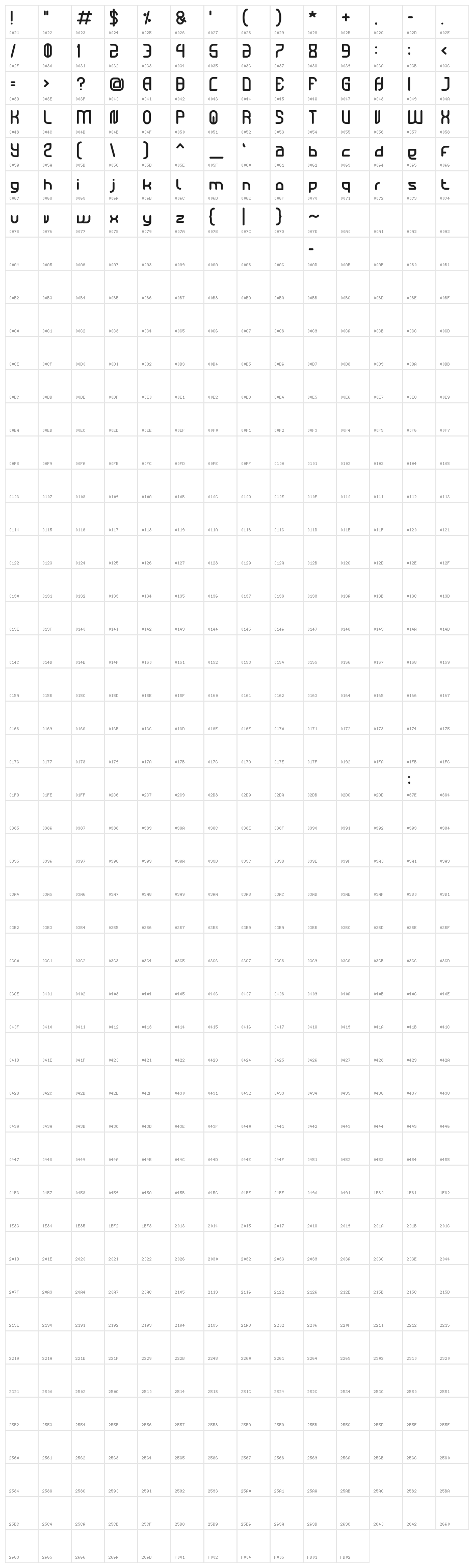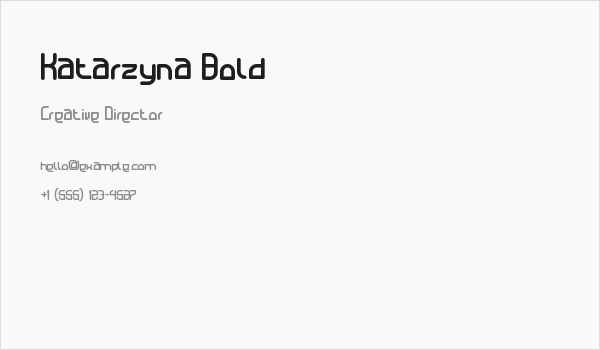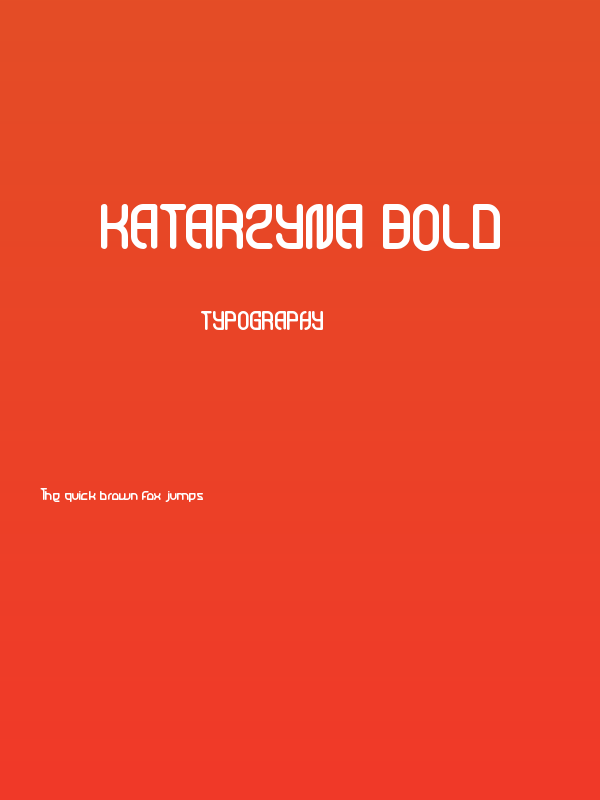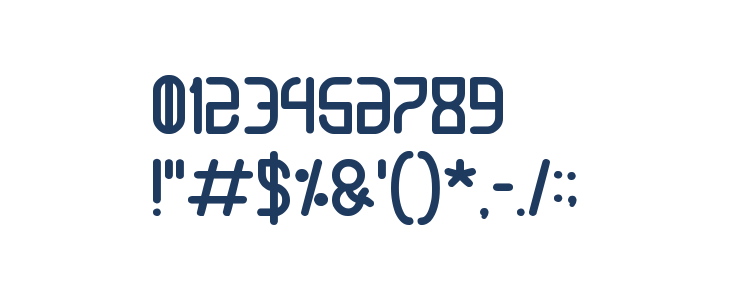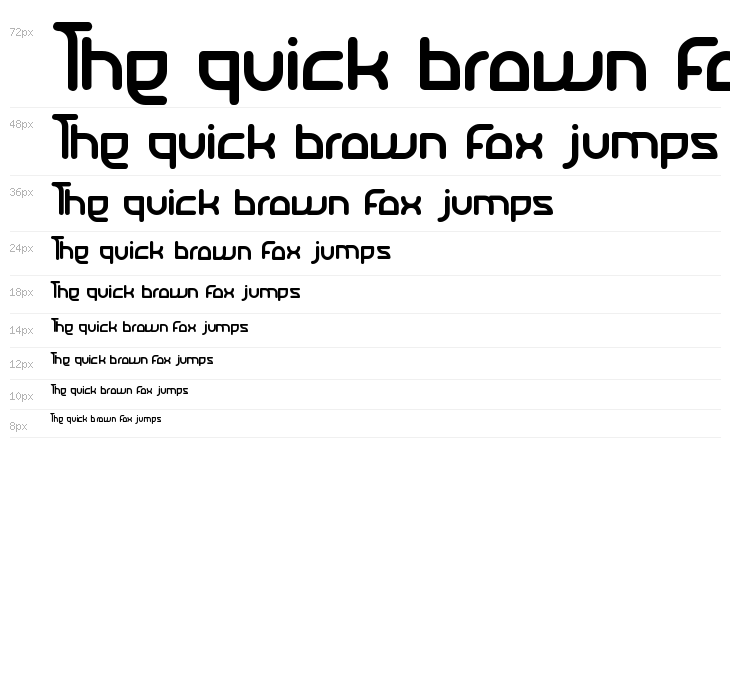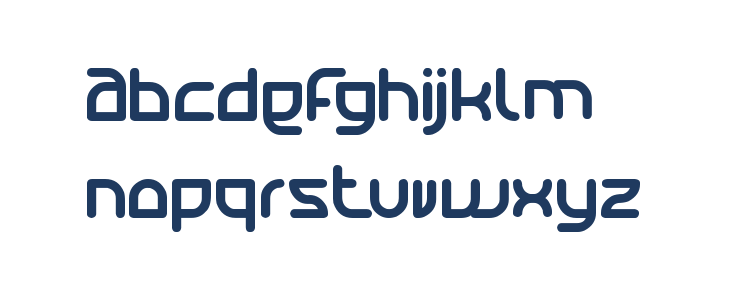
Katarzyna Bold Font
Katarzyna Bold Description
This font features a bold, rounded style with a modern and futuristic aesthetic. The characters are uniformly thick, creating a strong visual impact. The rounded edges and consistent line weight give it a friendly and approachable feel, while maintaining a sense of precision and clarity. The uppercase and lowercase letters are distinct yet harmonious, and the numerals are clear and easily readable. Special characters are well-integrated, maintaining the overall style. This font is versatile, suitable for both digital and print media, and can be used to convey a contemporary and innovative message.
KATARZYNA-BOLD UPPERCASE
KATARZYNA-BOLD LOWERCASE
KATARZYNA-BOLD OTHER CHARS
| Use Case | Headlines, Logos, Digital Interfaces |
| Proposed Projects | Ideal for technology branding, modern advertising, digital interfaces, and innovative product packaging. |